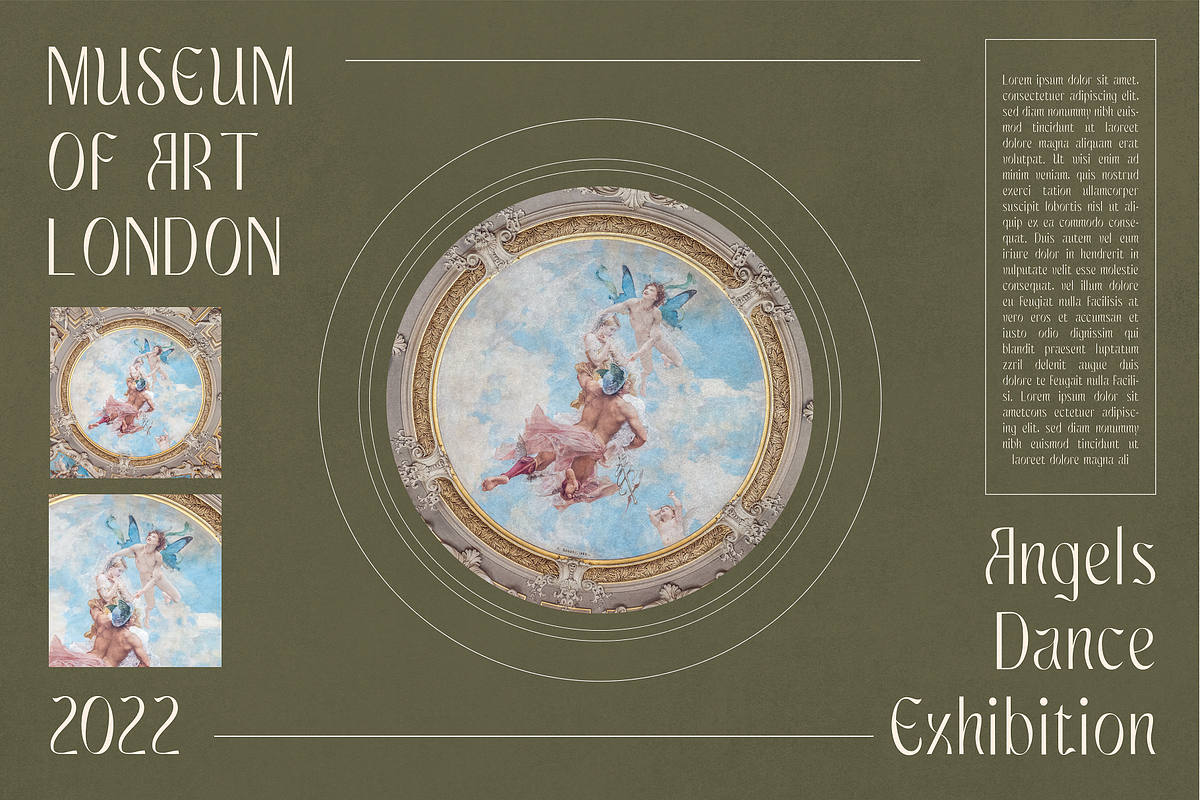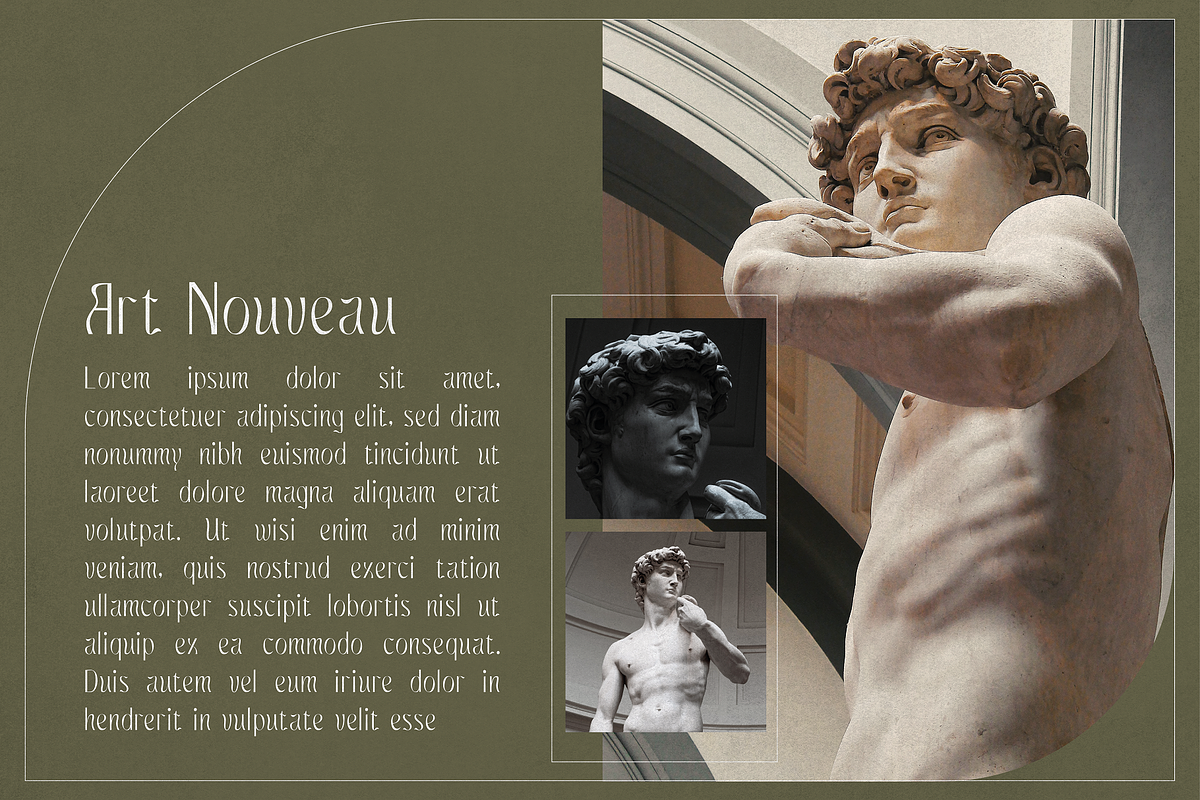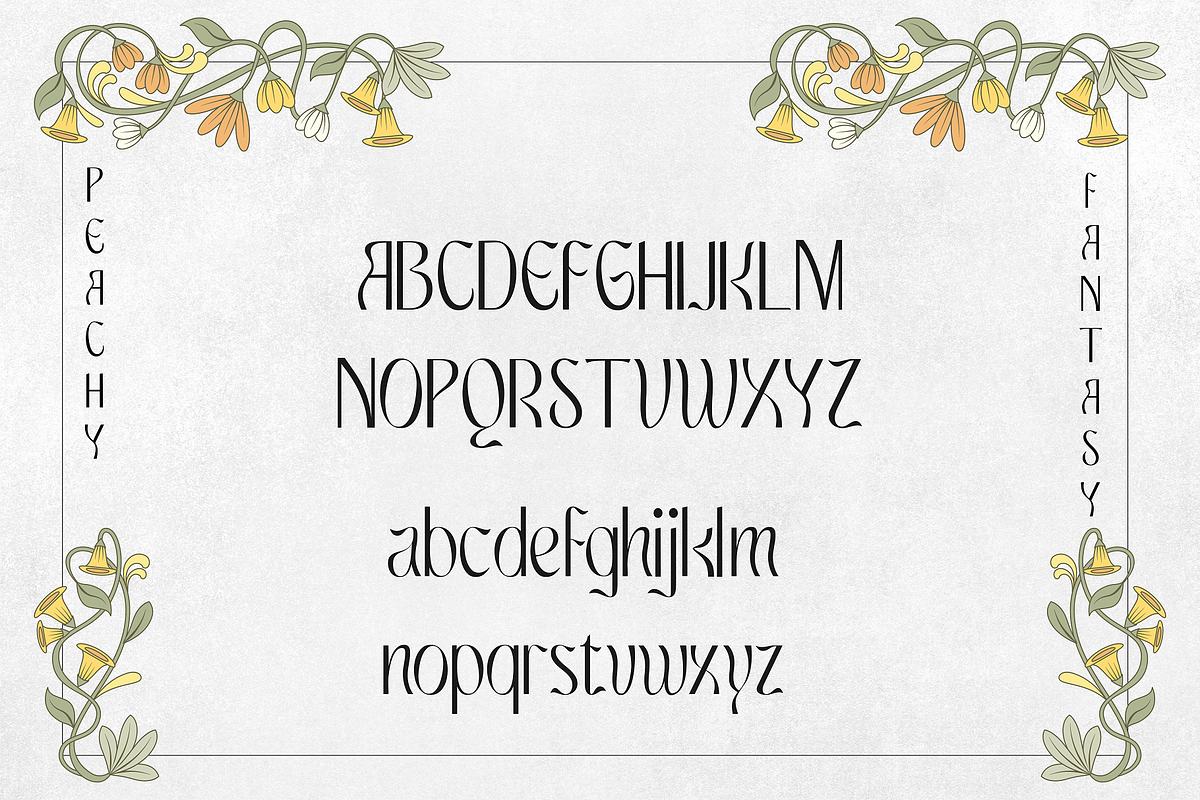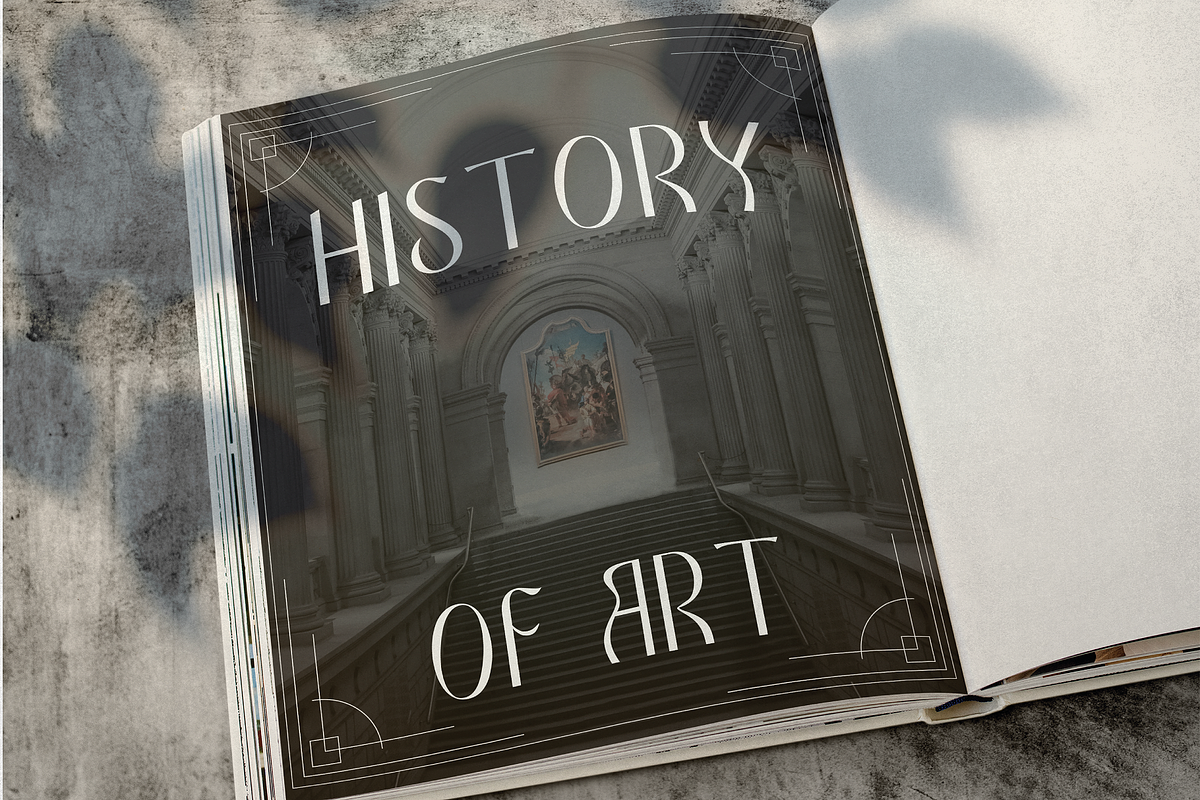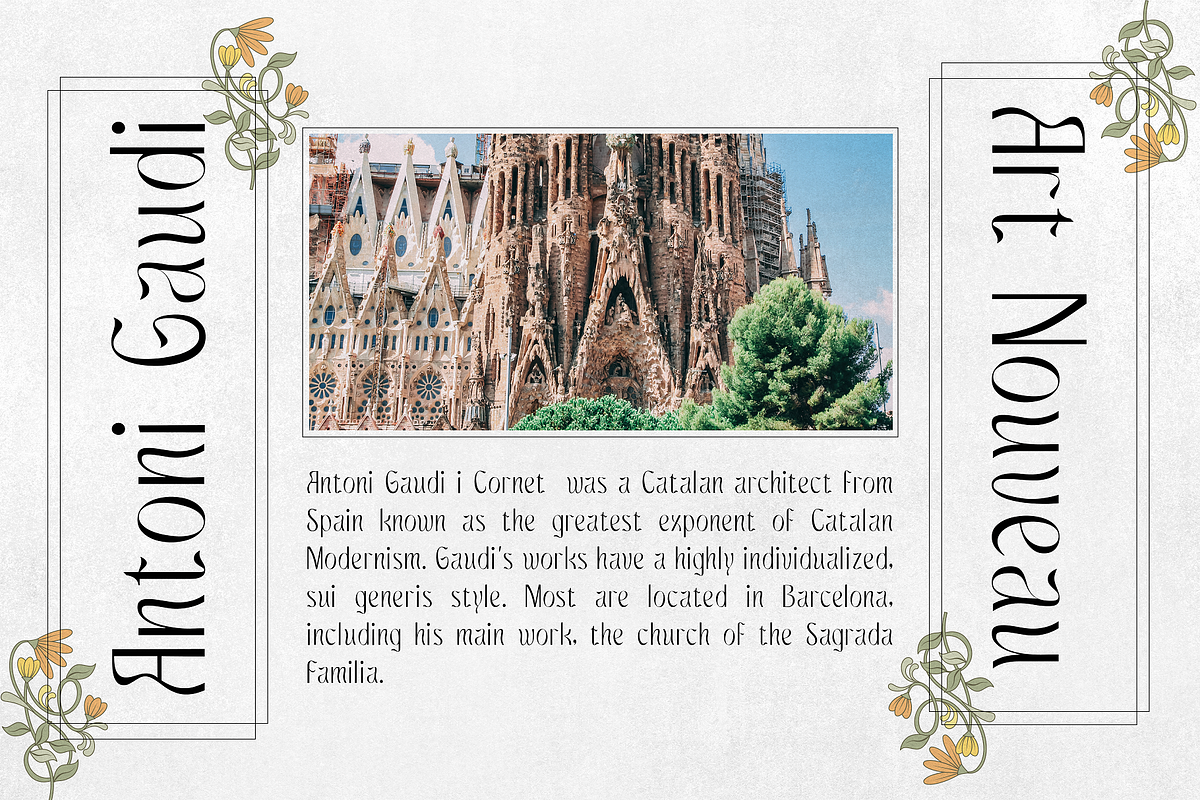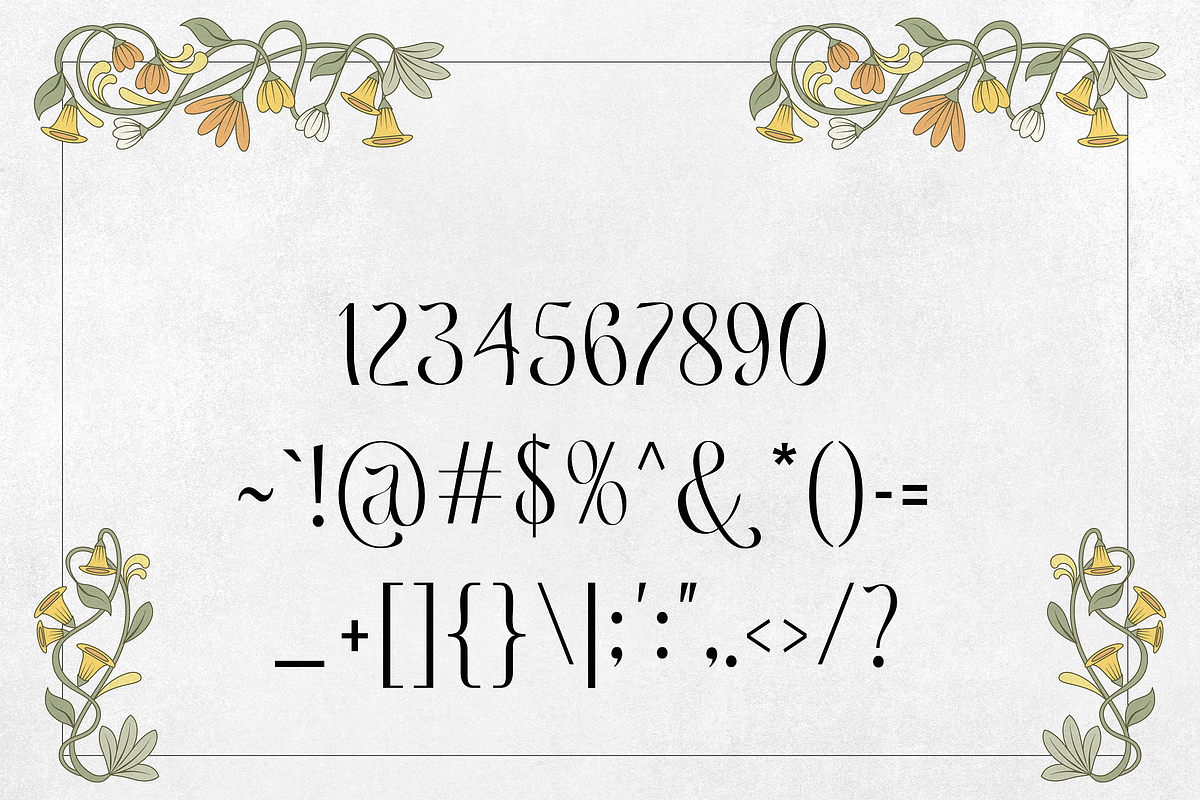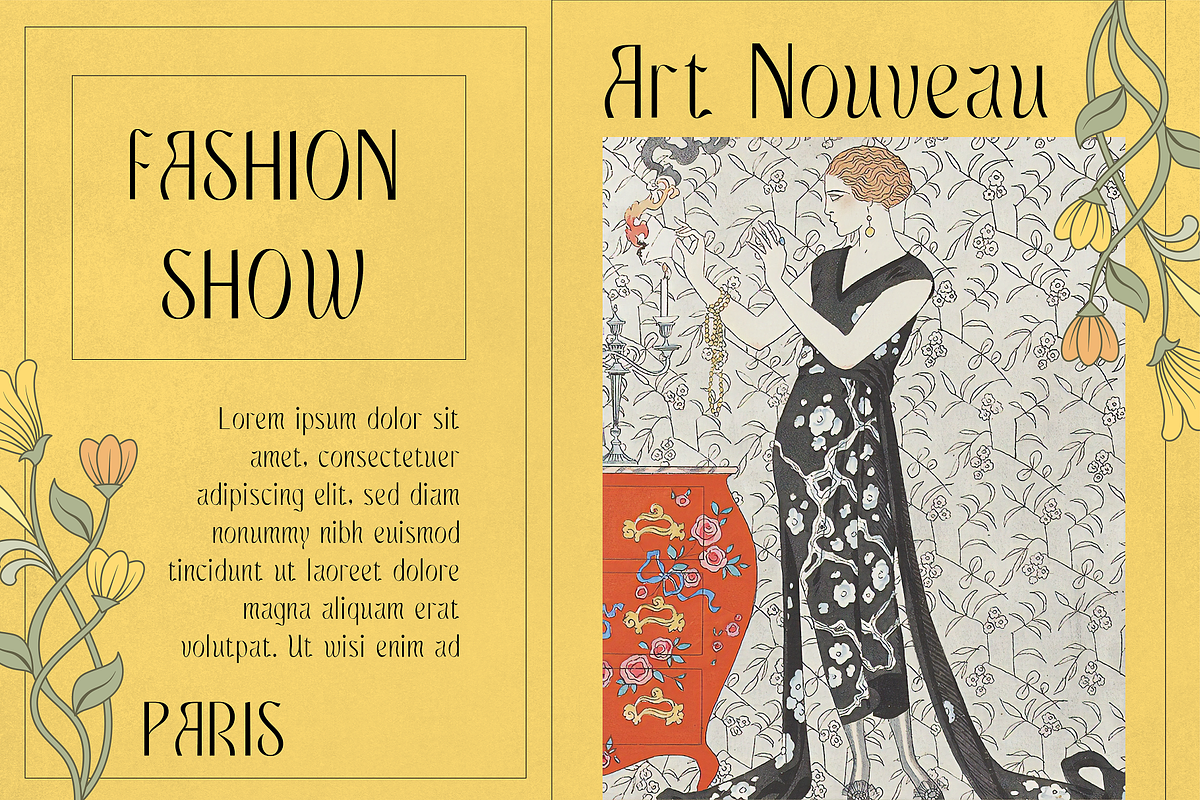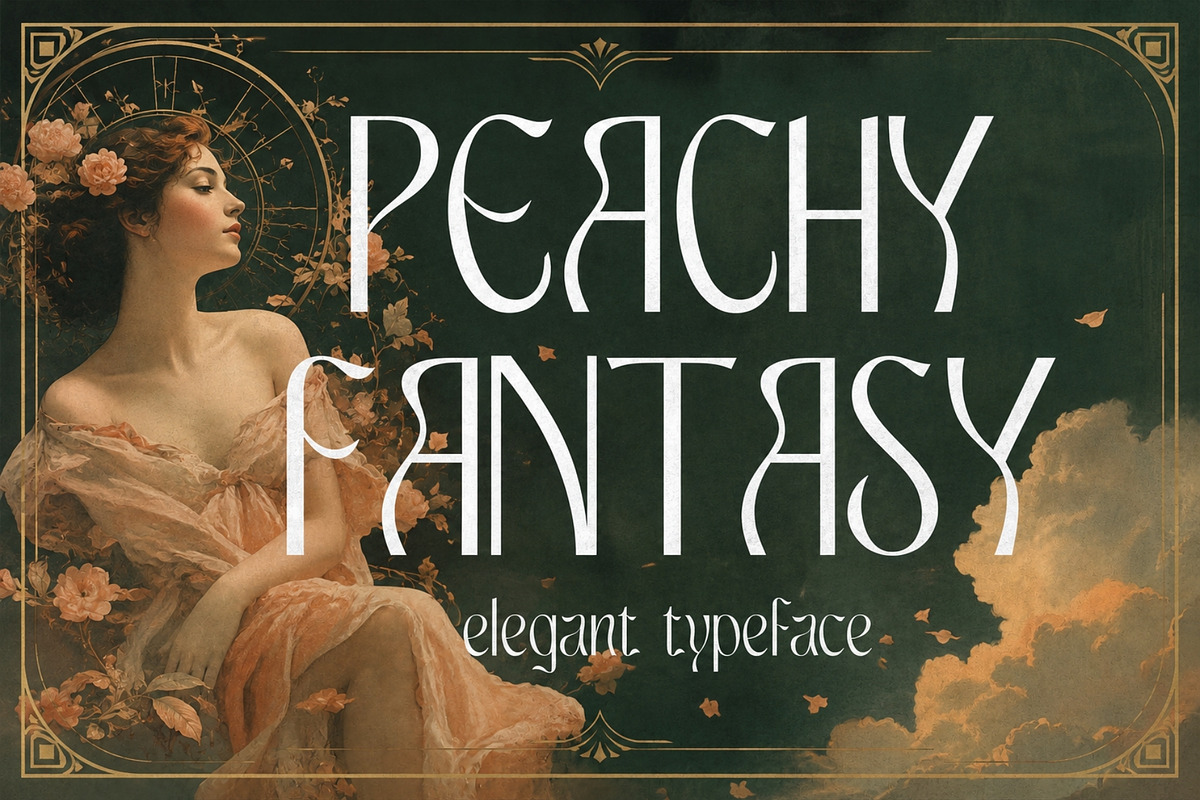
Peachy Fantasy - Art Nouveau Display
Peachy Fantasy is an Art Nouveau inspired typeface that evokes nostalgia. This typeface is ideal for a wide range of projects such as magazines, posters, branding, apparel, editorials, social media, packaging, advertisements, and much more. Each letter stands out on its own, giving your designs a touch of elegance and originality. If you're in the market for a modern typeface with vintage influences, then Peachy Fantasy is for you.